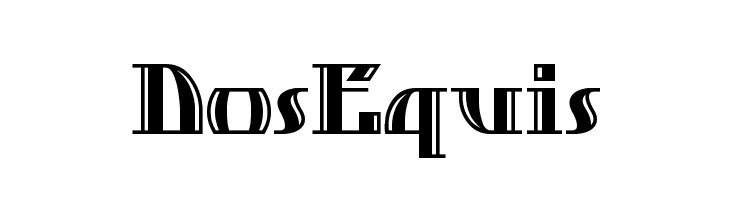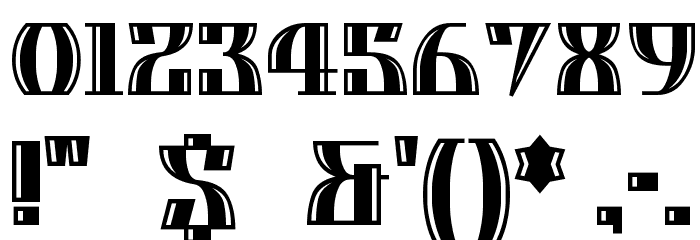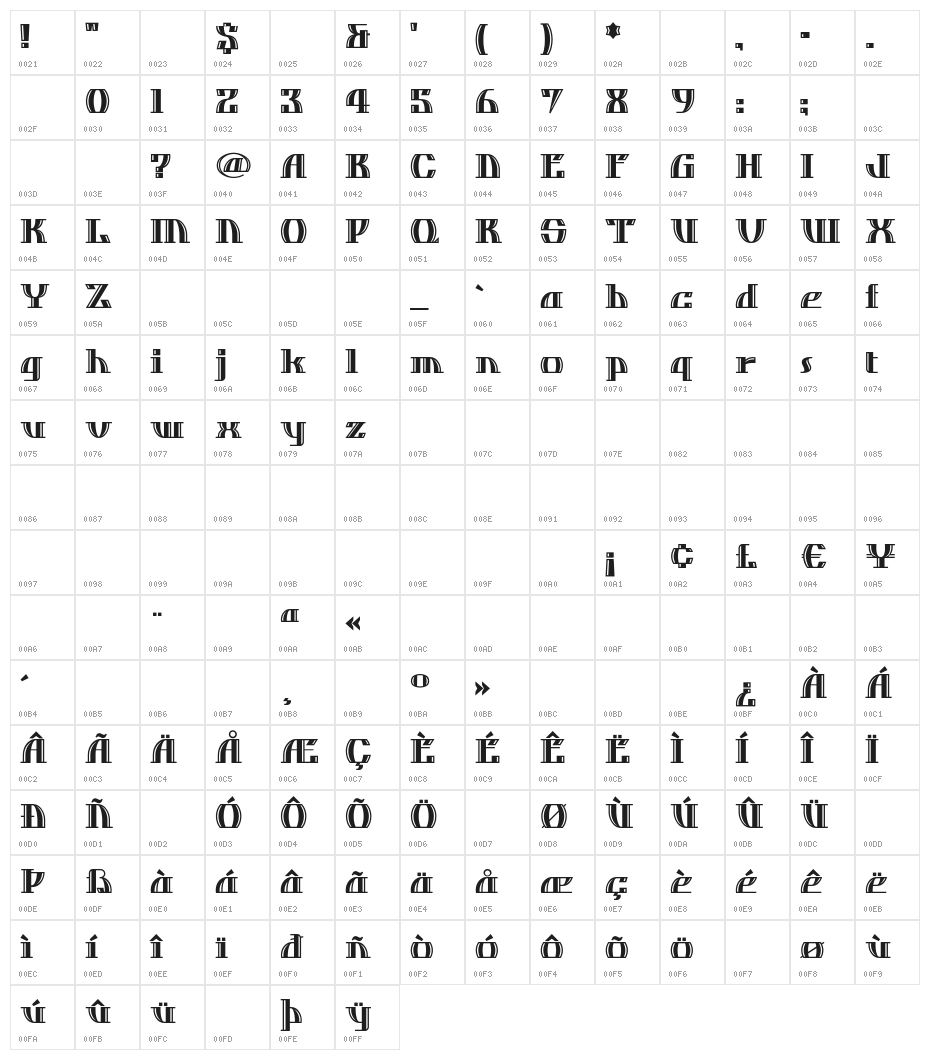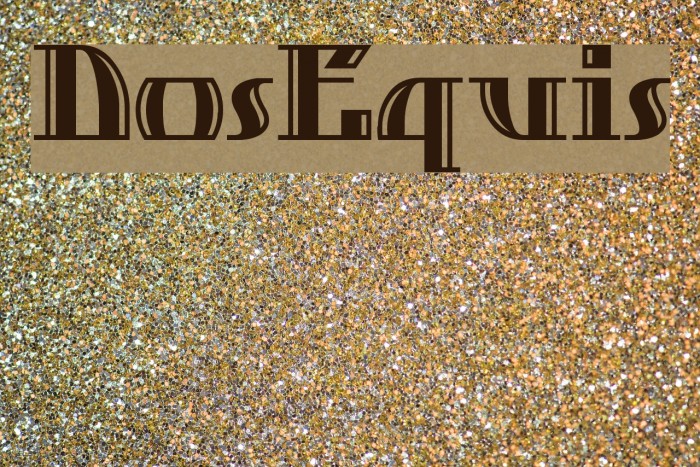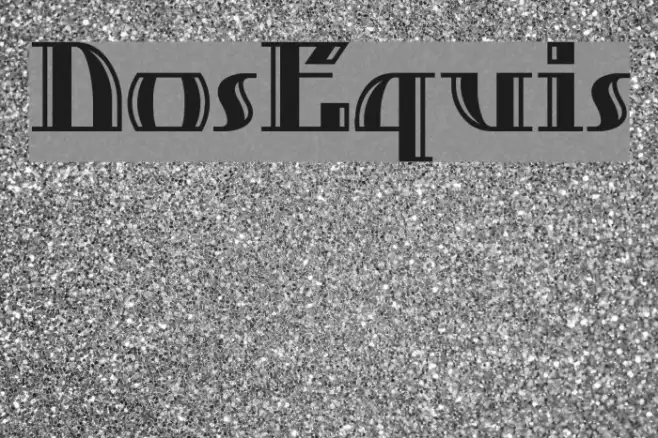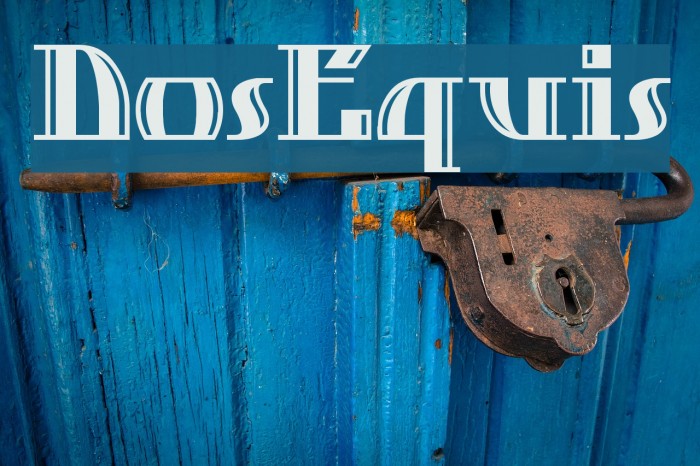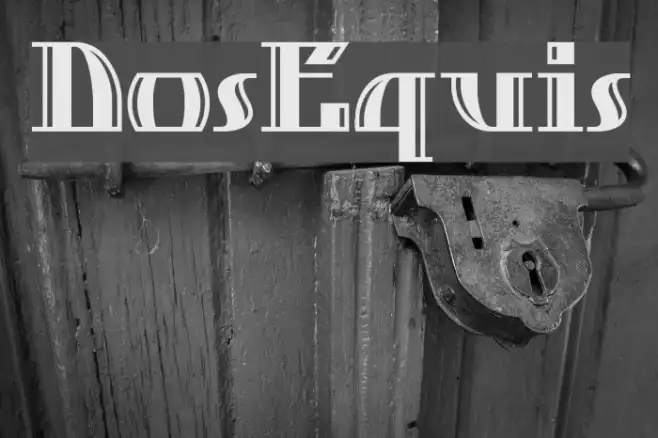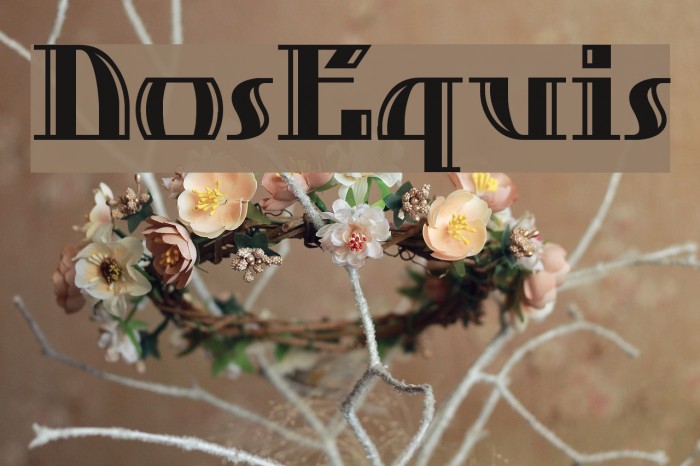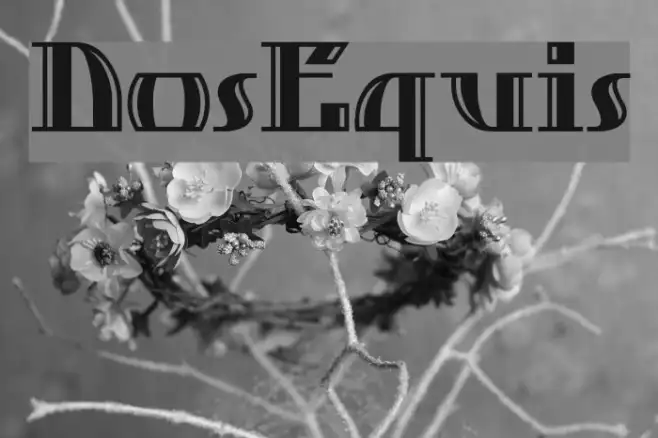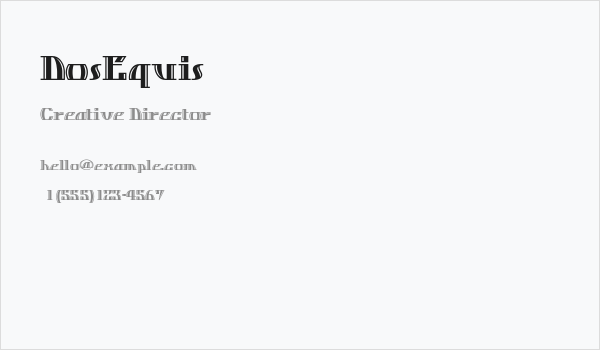
DosEquis Font
DosEquis Description
This font features a bold and striking design with a unique geometric style. The characters are composed of thick, angular lines with sharp edges and distinct cutouts, creating a sense of movement and energy. The uppercase letters are particularly eye-catching, with a futuristic and almost industrial feel. Lowercase letters maintain the same boldness, ensuring consistency throughout the typeface. Numbers and special characters are equally stylized, making them suitable for attention-grabbing headlines or logos. The overall design is both modern and decorative, making it ideal for projects that require a strong visual impact.